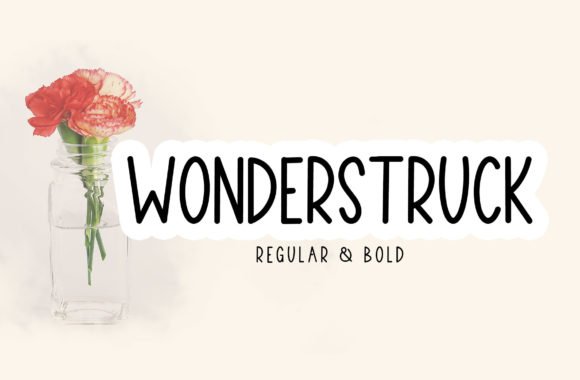
Venture into the realm of typography with Wonderstruck, a spellbinding sans serif font that will cast a magical charm on your creative projects. Inspired by the captivating allure of Halloween, Wonderstruck dances across the screen with its enchanting glyphs, evoking a sense of whimsy and excitement.
As a creation of Fontysia, Wonderstruck is meticulously crafted to be both visually striking and highly functional. Its clean lines and sharp edges exude a modern elegance that complements any design aesthetic, while its distinctive character adds a touch of individuality to your creations.
Whether you're crafting captivating invitations for a Halloween soirée, designing eye-catching social media posts, or creating unique logos for your business, Wonderstruck is your font-tastic companion. Its versatility knows no bounds, allowing you to effortlessly transform your ideas into captivating realities.
Immerse yourself in the world of Wonderstruck and let your imagination soar. This font is not just a collection of letters and symbols; it's a portal to a world of creativity, where your words take on a life of their own. With Wonderstruck, you'll discover a boundless fontastic universe where anything is possible.